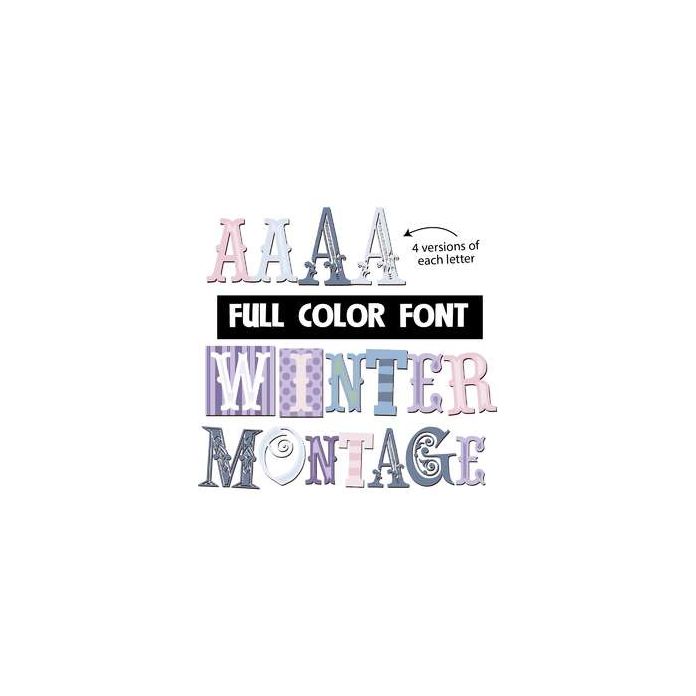
This full-color font features a montage of font styles in winter colors. There is an upper and lowercase alt case you can access through your system's character map. This font works best for titles, displays, posters and more. Please note color fonts will show as black in non compatible programs. This font type is compatible with Silhouette Studio.